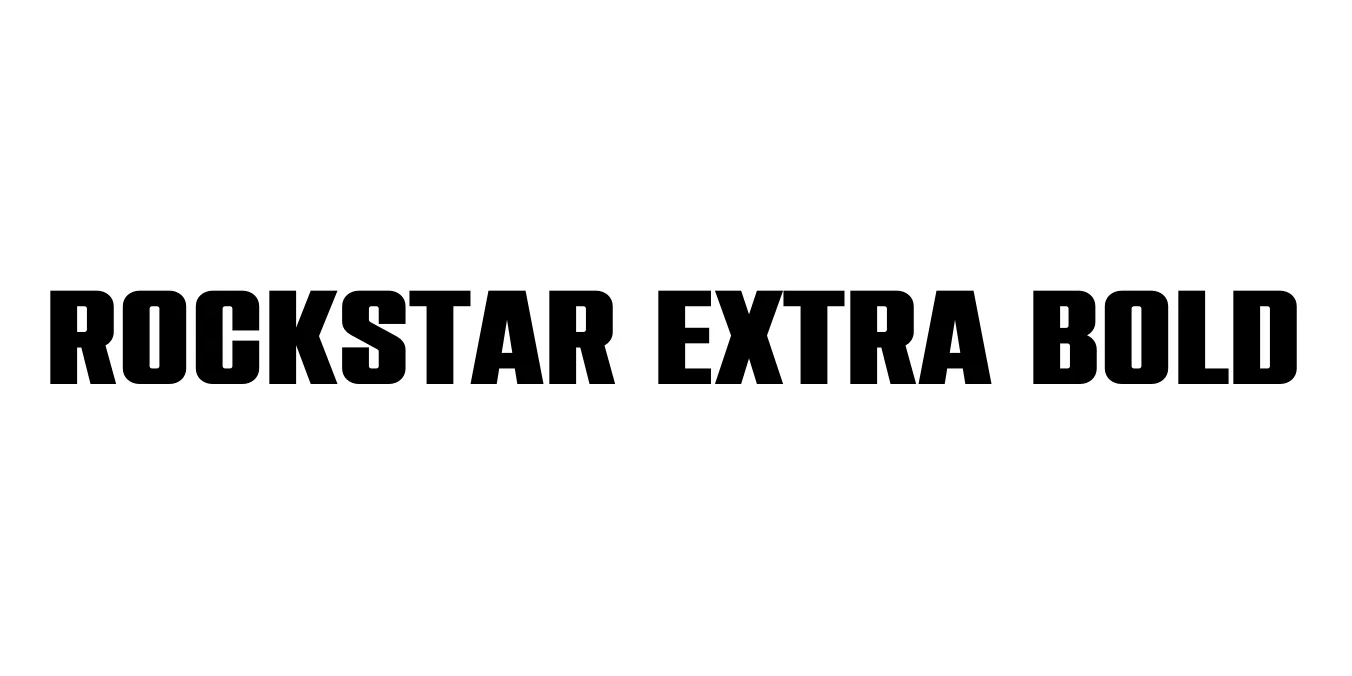
Rockstar Extra Bold
Designed by Canada Type (Patrick Griffin)
| Category | Display Sans Serif |
| Designer | Canada Type (Patrick Griffin) |
Rockstar Extra Bold is a high-impact display typeface designed to command attention through its sheer weight and structural integrity. Developed as part of a broader font family, this specific extra-bold weight emphasizes heavy strokes and tight kerning, making it an ideal choice for large-scale headlines and branding projects that require a powerful, modern aesthetic. Its clean lines and robust character shapes ensure that the font maintains high legibility even in complex or busy visual environments.
Inspired by the assertive typography found in mid-century rock-and-roll posters and contemporary extreme sports media, Rockstar Extra Bold offers a unique blend of vintage energy and modern precision. Designers frequently turn to this font for its versatility in logotype creation, poster design, and digital advertising, where a strong typographic voice is essential to cut through the noise and stand out to the audience.
Rockstar Extra Bold Best Uses
Perfect for creating strong, memorable logos that require a solid presence.
Excellent for high visibility in event, concert, and promotional print materials.
Great for eye-catching thumbnails and high-contrast story headers.
Ideal for bold graphic t-shirt designs and athletic sportswear branding.